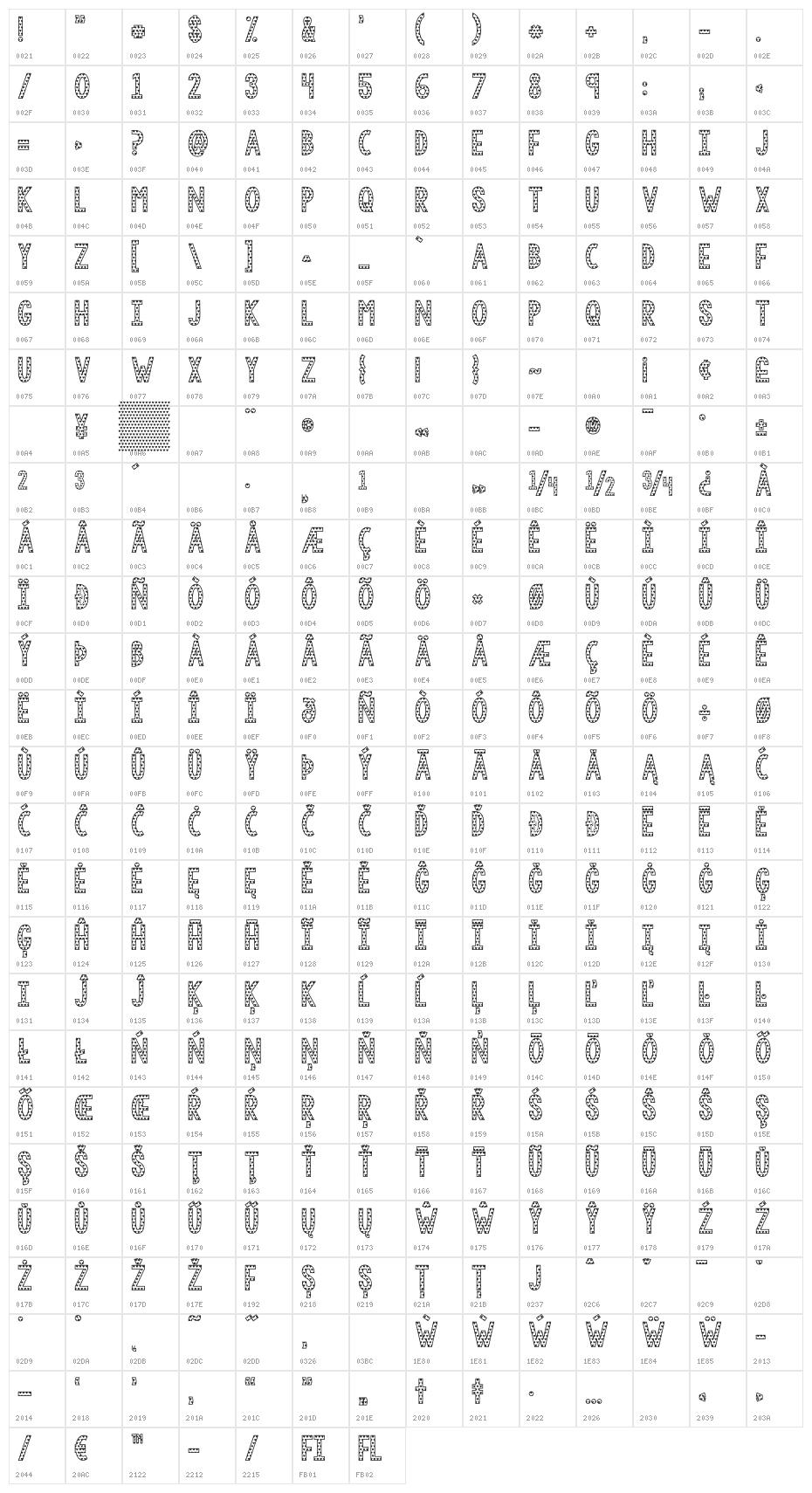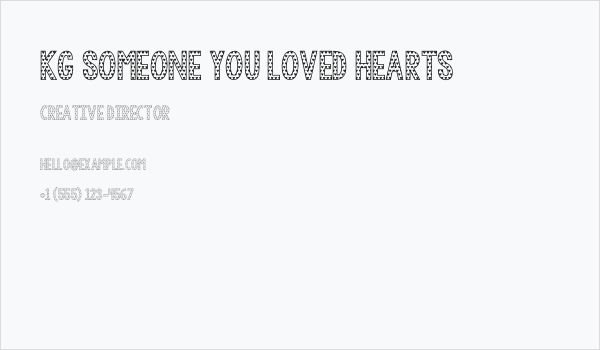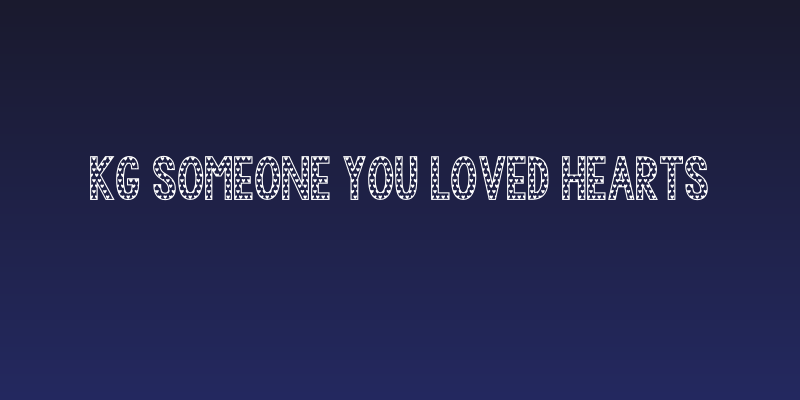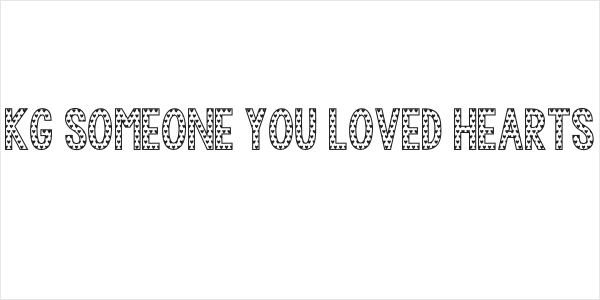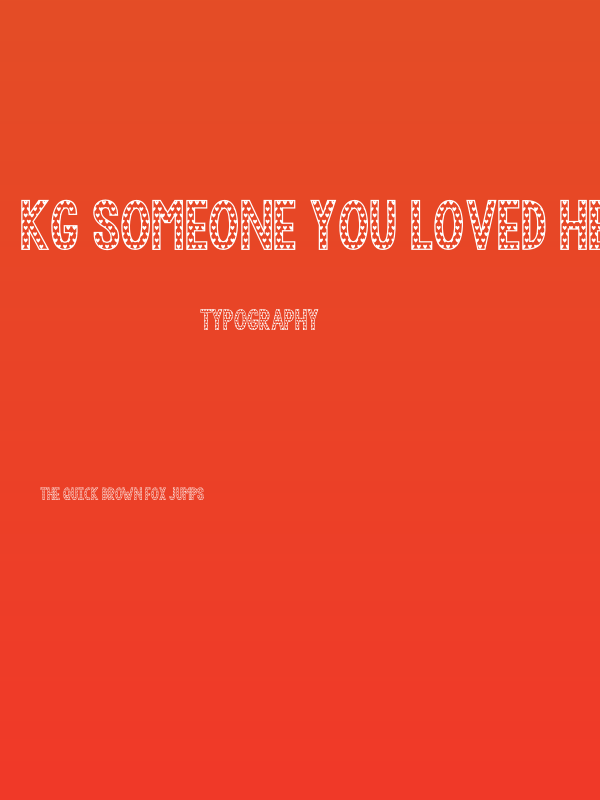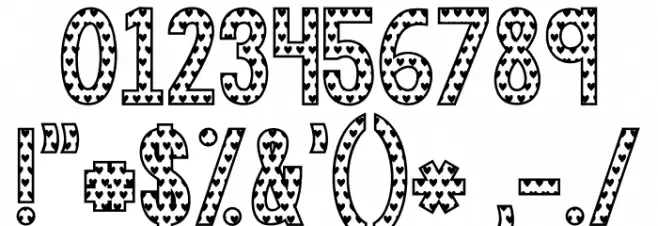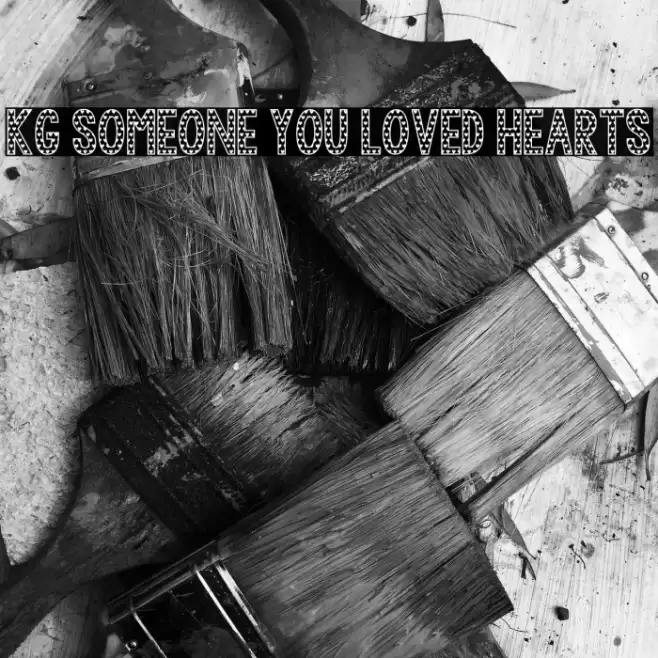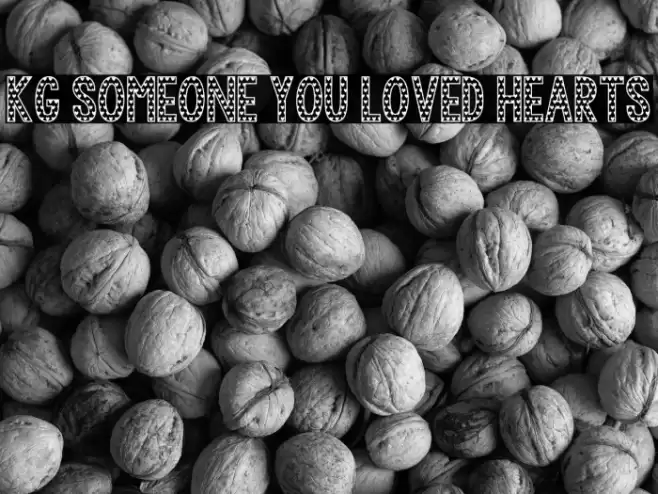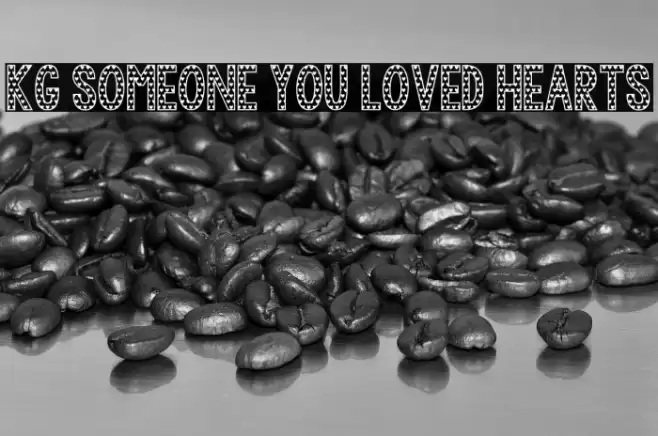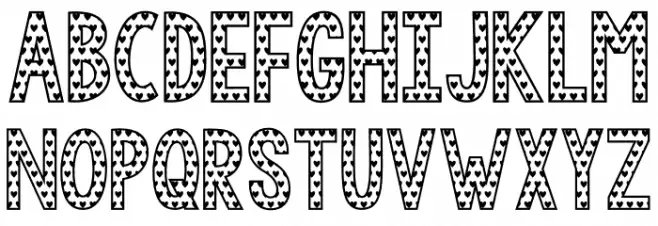
KG Someone You Loved Hearts Font
KG Someone You Loved Hearts Description
This decorative font features bold, uppercase and lowercase letters, as well as numbers and special characters, all adorned with a pattern of small hearts. The design is playful and eye-catching, making it ideal for projects that require a touch of whimsy and romance. The heart pattern is consistent across all characters, providing a uniform and cohesive look. The font's boldness ensures readability while maintaining its decorative appeal.
| Proposed Projects | Ideal for Valentine's Day cards, wedding invitations, love-themed posters, and playful branding projects. |